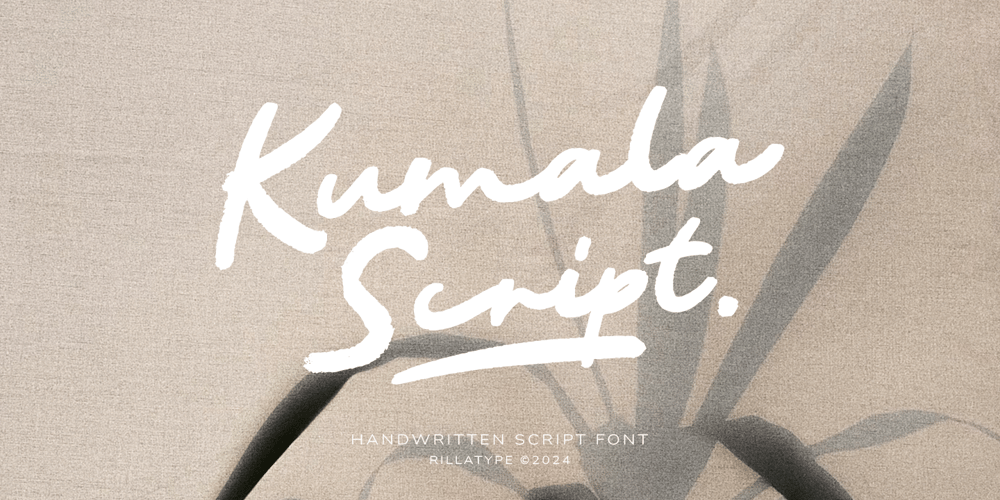
Kumala Script
Kumala Script font
Kumala Script Font Family was designed by Gustian Agung Asprilla and published by Rillatype. Kumala Script contains 1 styles and family package options. Introducing “Kumala Handwritten Script,” a font crafted with artistic finesse and a touch of personal charm. Embracing the beauty of imperfection, this script font captures the essence of hand-drawn strokes, bringing a unique character to your projects.Whether used for invitations, quotes, or branding, “Kumala” adds a distinctively human touch. Its fluid lines and versatile nature make it a perfect choice for those seeking a blend of elegance and informality. With a range of characters and a warm, inviting vibe, “Kumala Handwritten Script” is designed to elevate your creative expressions.Unlock the potential of personalized typography with “Kumala Handwritten Script” and infuse your designs with a handwritten authenticity that resonates with every stroke.